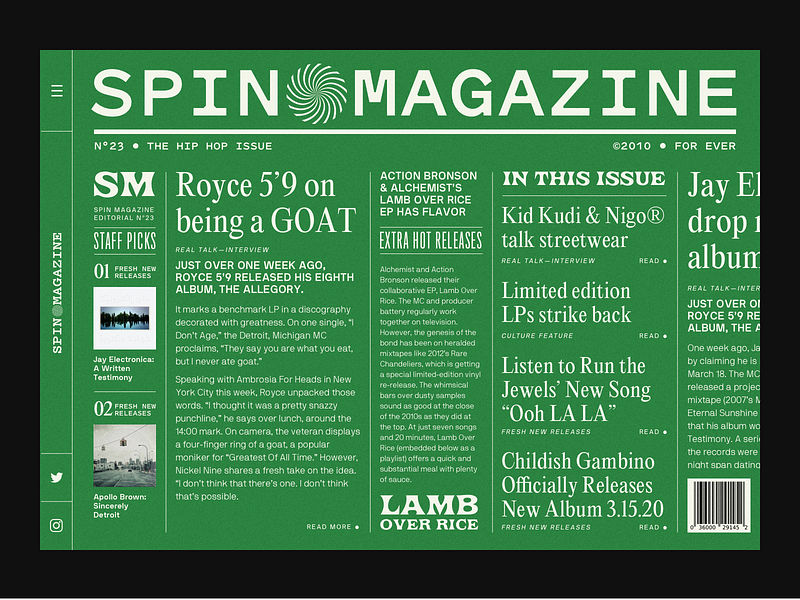
8 expressive free font combos for your next design—Curated by Davide Baratta
Davide Baratta Visual designer & typography master Davide Baratta shares his favorite free typeface combinations and why they work. See the font pairs in action through Davide’s awesome visuals, and get inspired to try them out for yourself! ■
SPIN MAGAZINE
1. Mazius Display + Libre Baskerville
Elegant and brutal, Mazius is a high contrast serif typeface by Colletttivo. It comes in three styles which allow you to get creative with mixed weights. What sets this font apart are its prominent calligraphic features which really shine in the extra italic. Pair it with the timeless Libre Baskerville, and you’ll get a sophisticated look with an edge.
2. Regina Black + Poppins
Friendly, bold, and funky, Regina Black is a heavy display font with two styles, solid and hilite. The low curvy shapes and the pointy serifs are what give this font its bubbly character. Modern and geometric, Poppins is perfect to balance out Regina’s curves. This combo is fresh and retro at the same time, ideal to evoke a 70s aesthetic.
3. Monument Extended + Sapce Mono
When it comes to bold, heavy titles, Monument Extended is an easy choice. A super modern, extended sans serif that comes in 5 weights, which makes it pretty versatile. I love to pair it with a lighter font to exaggerate the contrast. In this case, Space Mono dials up the techy, futuristic look, taking in to Mars.
4. Corben + Manrope
If you’re looking for a free alternative to Cooper then you’ll probably like Corben. It’s a 1920s-inspired display font with soft, rounded serifs and wide curves. With two weights, it can be used in both high-end and more relaxed executions and it’s great to create a warm, retro vibe. With a similar x-height, Manrope is a great pair, a modern grotesque with 7 weights plus a variable version also available on Google Fonts.
5. Sporting Grotesque + Agrandir
Sporting Grotesque is an old-school Grotesque packed with quirks. It features a strong thick to thin contrast, tight apertures, and calligraphic terminals. Confident and unconventional, it’s often used in brutalist designs or to inject personality into minimalist executions.
Agrandir features some similar shapes but compared to Sporting Grotesque, the apertures are wider and the contrast is less pronounced. Out of the 74 styles of Agrandir, I’ve picked a semi narrow version with geometric alternates to create a pair that has a seamless flow with a unique contrast.
6. Millimetre + Mondwest
Millimetre is a geometric sans serif inspired by mid-century sans as Novarese’s Eurostile and Microgramma. This typeface screams tech and 60s and it’s ideal for retro-futuristic, technological executions. To contrast Millimetre’s rounded curves and wide shapes, I’ve picked Mondwest, a unique serif bitmap font specifically designed for high contrast pairings. This type combo creates a unique aesthetic where past and future meet and blend together.
Millimetre:
Designer: Jérémy Landes | Download: Velvetyne | License: Open Source
Mondwest:
Designer: Steve Marchal | Download: Pangram | License: Free for Personal Use
7. Cinzel Decorative + URW Classico
Cinzel is a typeface inspired by ancient Roman inscriptions with a modern twist. The proportions of the letters are classic but details like the open joints of the Bs add a contemporary feel that makes this font unique. With its decorative variants, Cinzel is perfect for creating typographic compositions and logotype. Similarly, URW Classico, an Optima-like free typeface, is inspired by Italian stone inscriptions and classic Roman proportions but the lack of serifs makes it modern and hard to fit in a box.
These two typefaces together create an ancient, almost magical aesthetic that can be exaggerated by using Cinzel’s flourishing decorations to alter its flow.
Cinzel Decorative:
Designer: Natanael Gama | Download: Google Fonts | License: Open Source
URW Classico:
Designer: original design by Hermann Zapf | Download: Font Library | License: Open Source
8. Bebas Kai + Palm Canyon Drive
Bebas Kai is an all-caps, condensed typeface that doesn’t really need much of an introduction. It’s very similar to its sister Bebas Neue but if you look close, you’ll spot details like the legs of the Rs and the joints of the Ws that make Bebas Kai more geometric and straight.
I’ve paired it with Palm Canyon Drive, a monoline script inspired by mid-century California. The contrast between these two typefaces make them perfect for anything holiday-themed, outdoorsy, with a classy and retro touch.